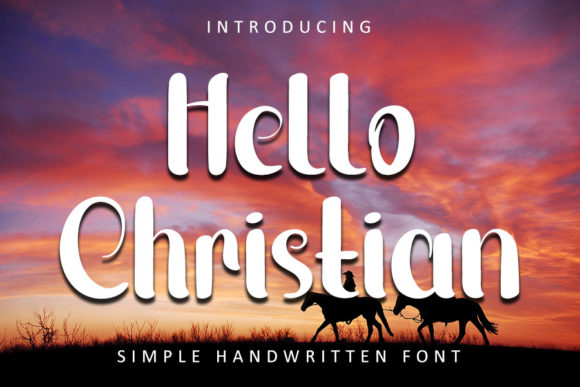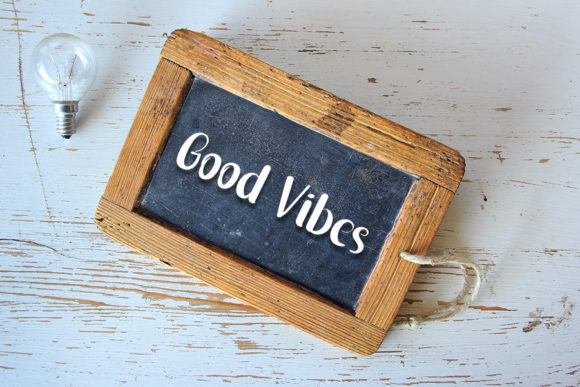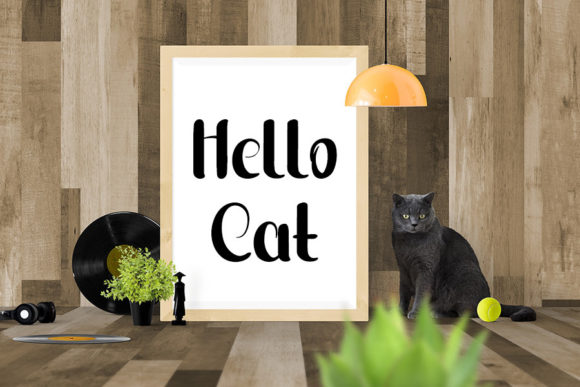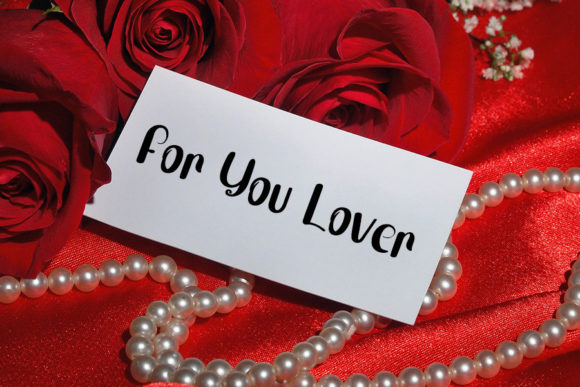
About Hello Christian Font
Hello Christian is a playful and smart handwritten font with an impeccable form, inspired by a timeless calligraphy. Balanced and varied, this font was designed to enhance the beauty of your projects.